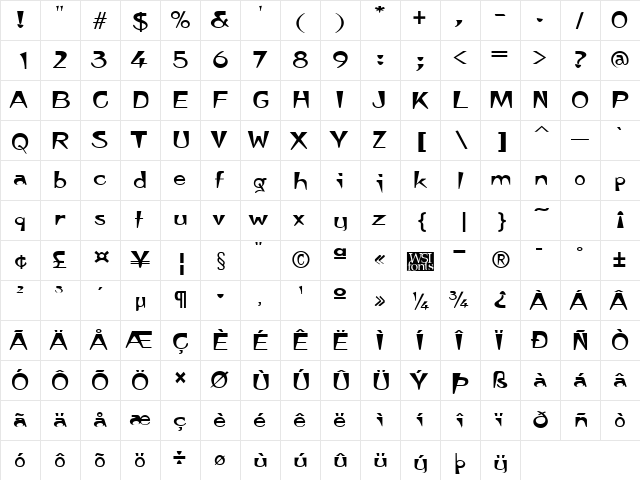
TempuraExpanded normal
TempuraExpanded is a composed and adaptable typeface that performs quietly and consistently across a wide range of design contexts.